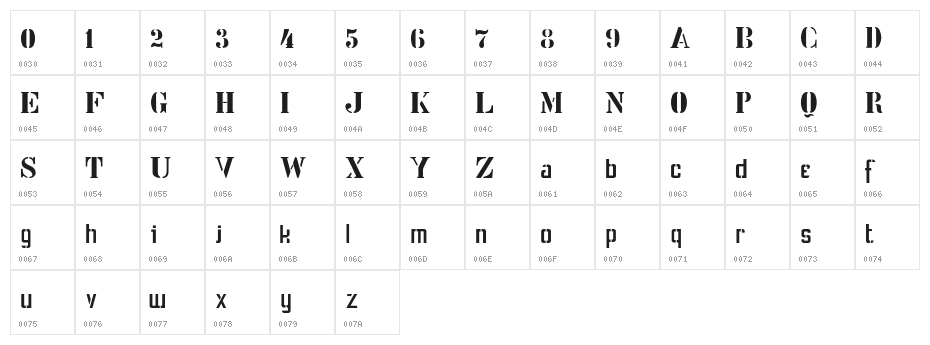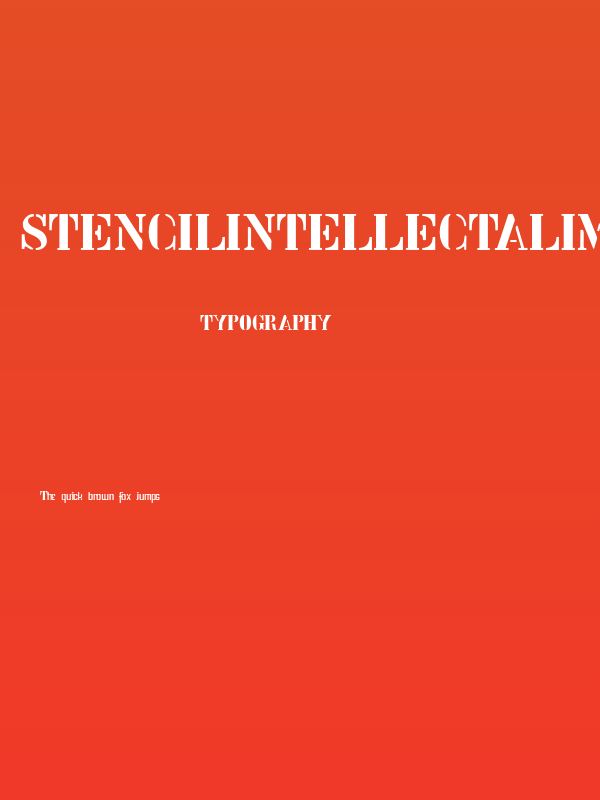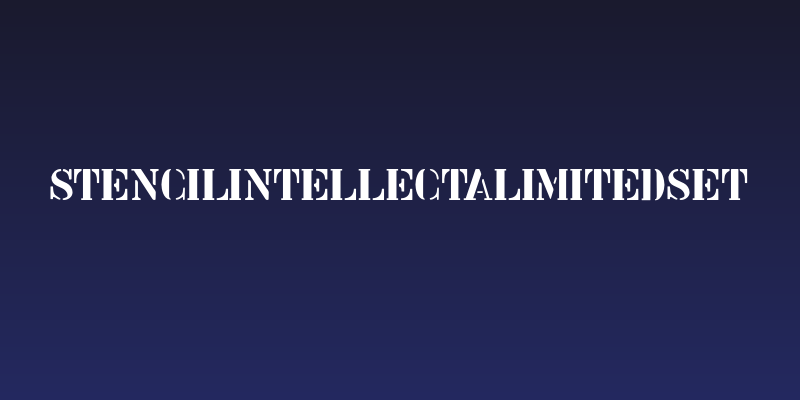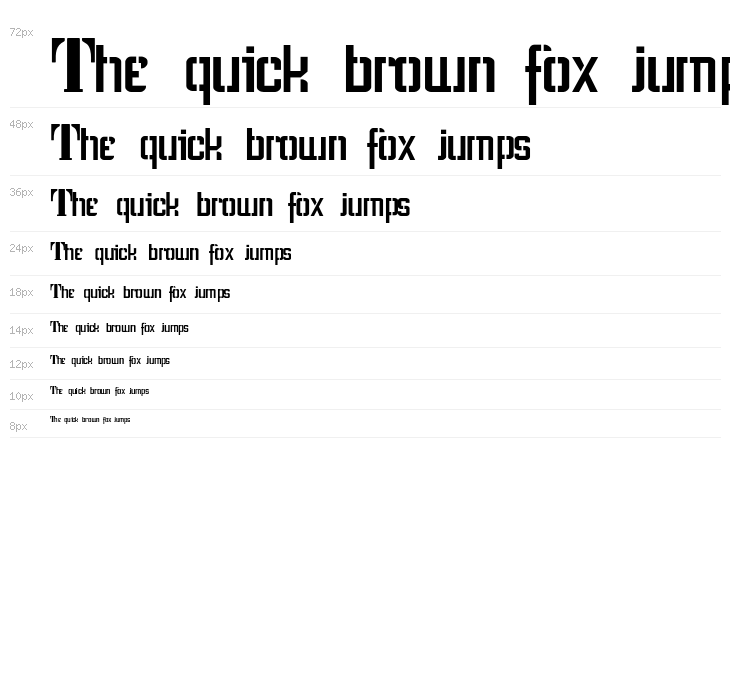
StencilIntellectaLimitedSet Font
StencilIntellectaLimitedSet Description
This font features a bold, stencil-like design with distinct cut-out sections in each character, creating a rugged and industrial appearance. The uppercase letters are particularly striking, with sharp angles and clean lines that enhance the stencil effect. The lowercase letters maintain the same boldness, ensuring consistency across the typeface. Numbers and special characters are designed with the same attention to detail, making them suitable for a variety of applications. The font's unique style is both eye-catching and functional, ideal for projects that require a strong visual impact.
Overall StyleIndustrial, Modern
Proposed ProjectsIdeal for branding, posters, signage, and any project requiring a bold, industrial aesthetic.